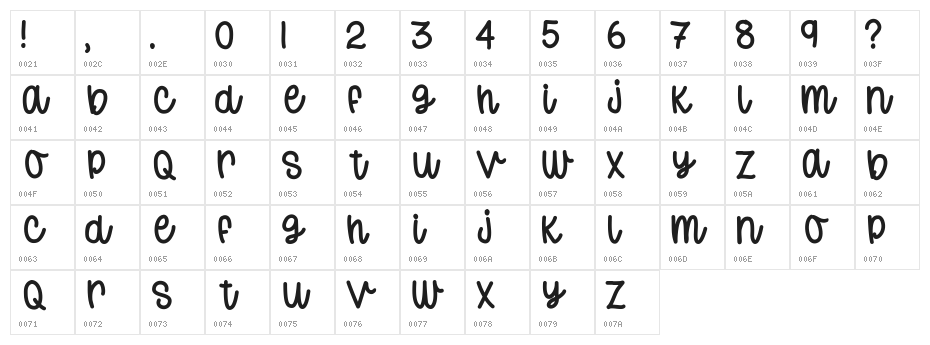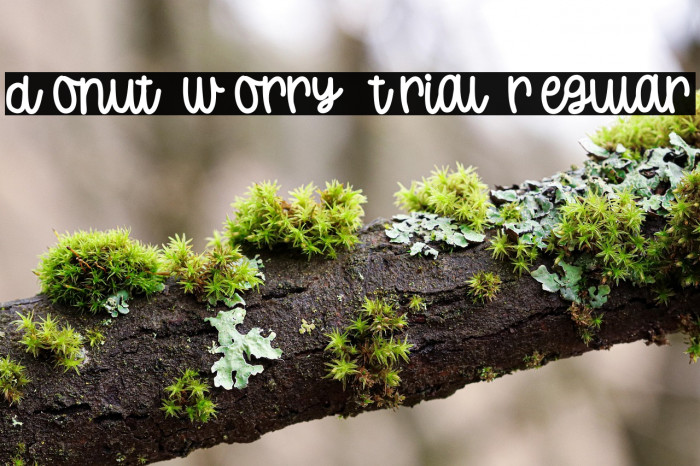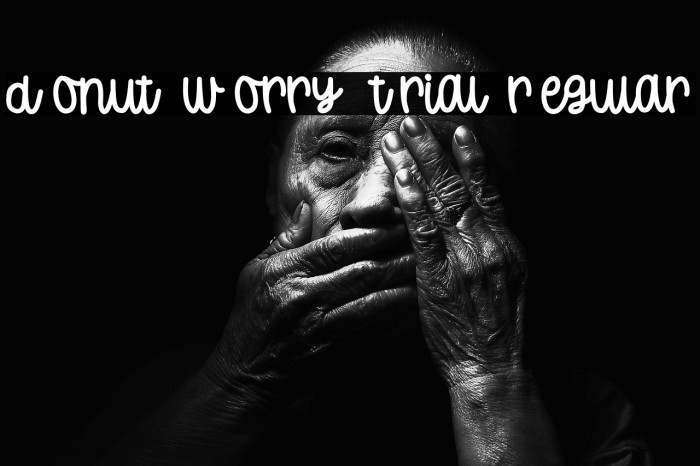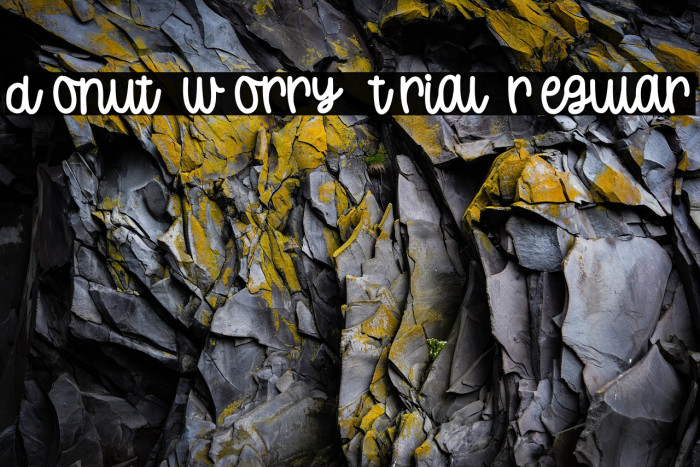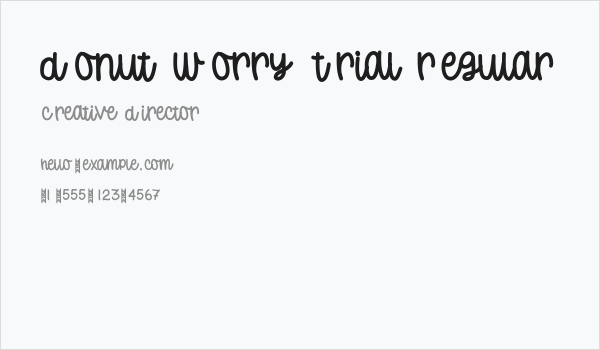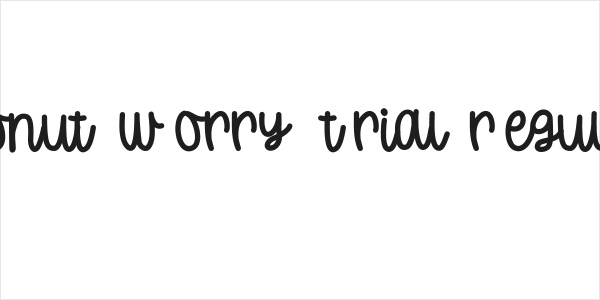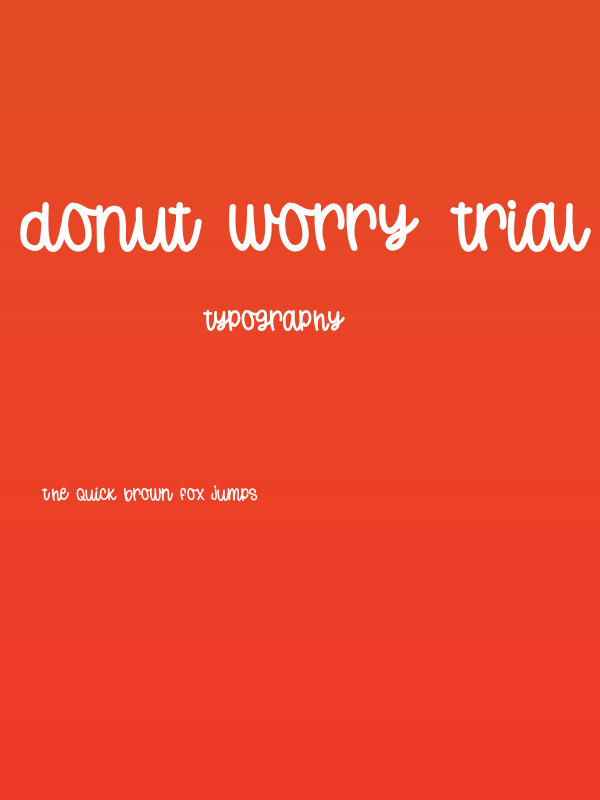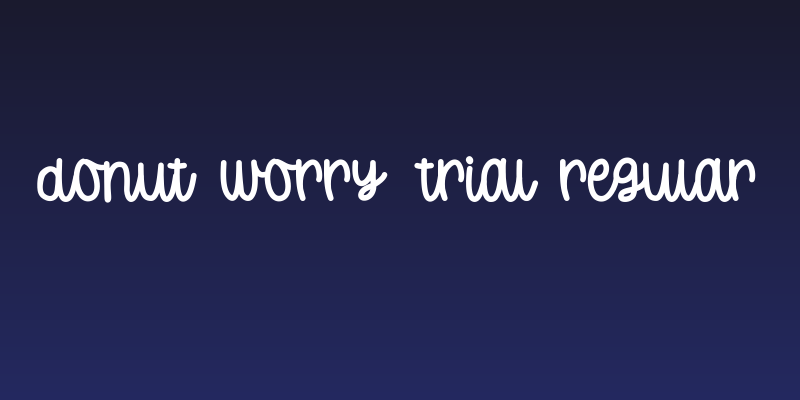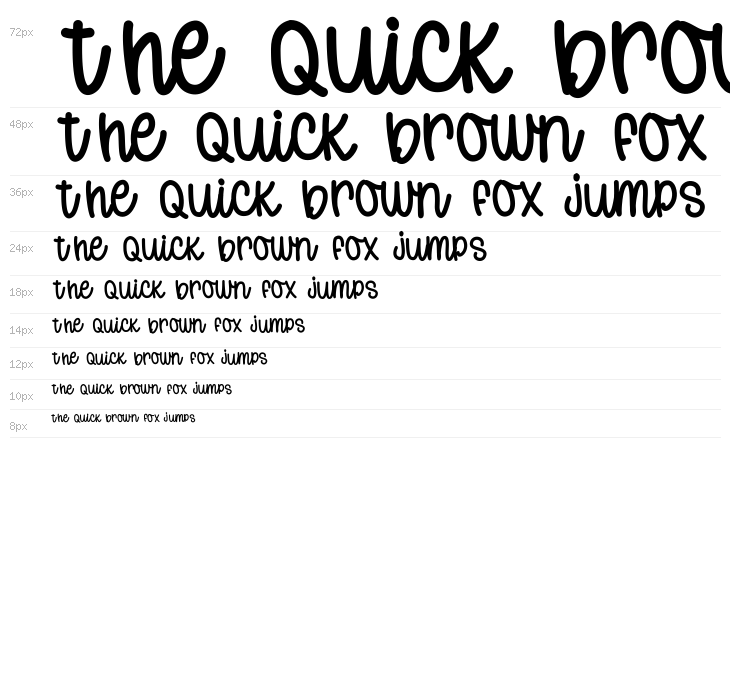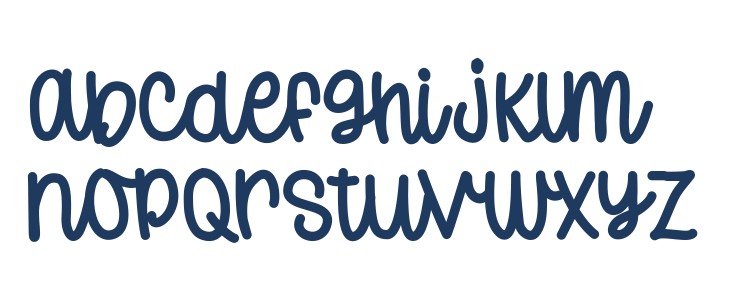
Donut Worry Trial Regular Font
Donut Worry Trial Regular Description
This playful and whimsical font features a handwritten style with smooth, rounded edges and a consistent stroke width. The characters are slightly slanted, giving a casual and friendly appearance. The uppercase and lowercase letters maintain a uniform height, contributing to its cohesive look. The numbers and special characters are designed to match the overall style, ensuring a harmonious appearance across all text. This font is perfect for projects that require a personal touch, such as invitations, greeting cards, or playful branding.
| Proposed Projects | Ideal for invitations, greeting cards, playful branding, and personal projects. |